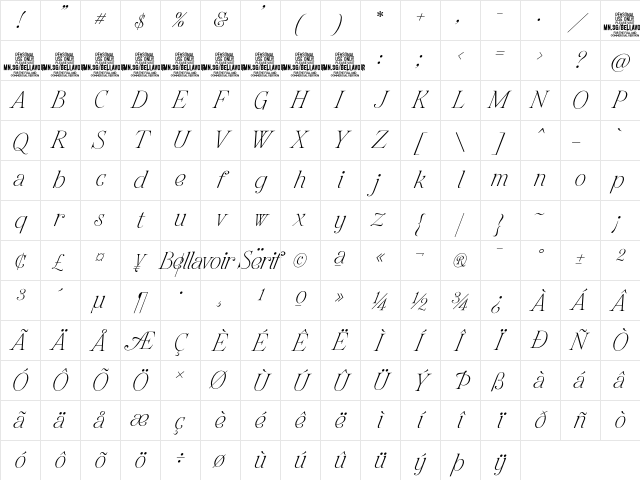
Bellavoir Serif PERSONAL USE carries the refined structure of traditional serif typography, with bracketed terminals and considered proportions that communicate credibility and craft.
Pro Tip: Use Bellavoir Serif PERSONAL USE for editorial body copy and considered headline work. Pair with a neutral sans for UI elements or captions to create a classic hierarchy.